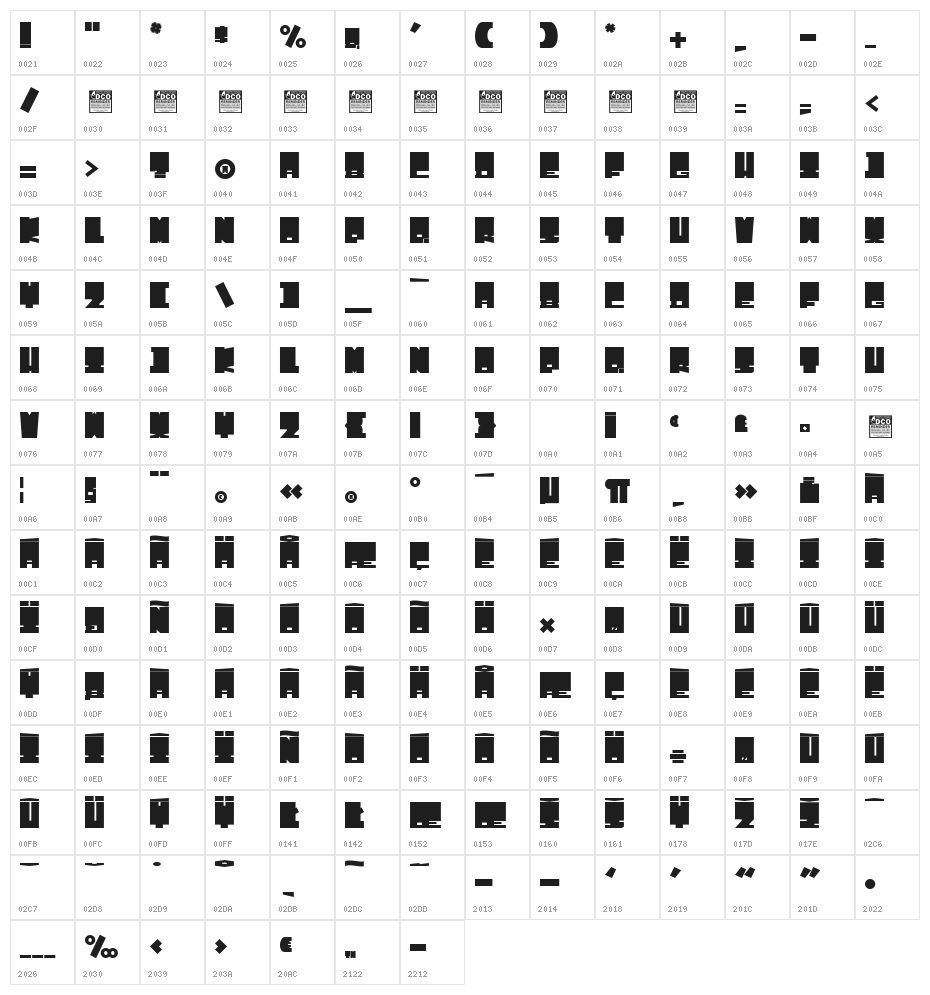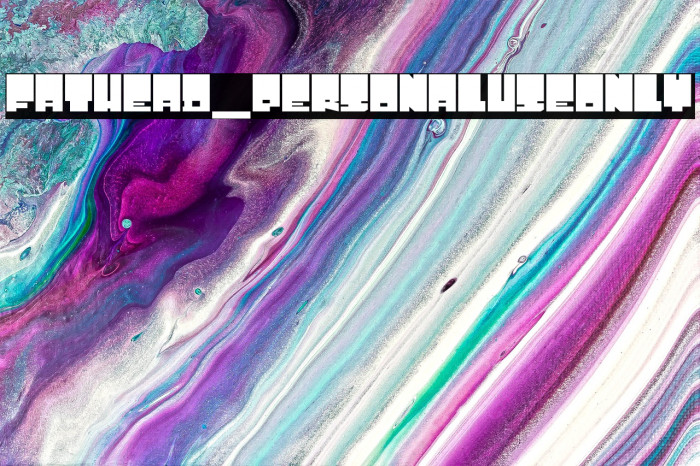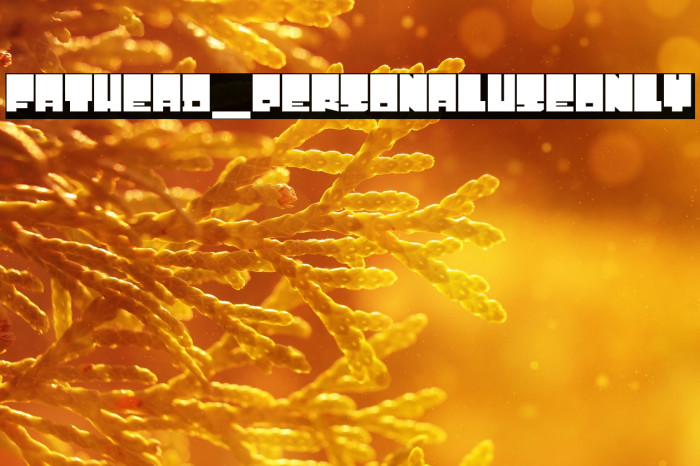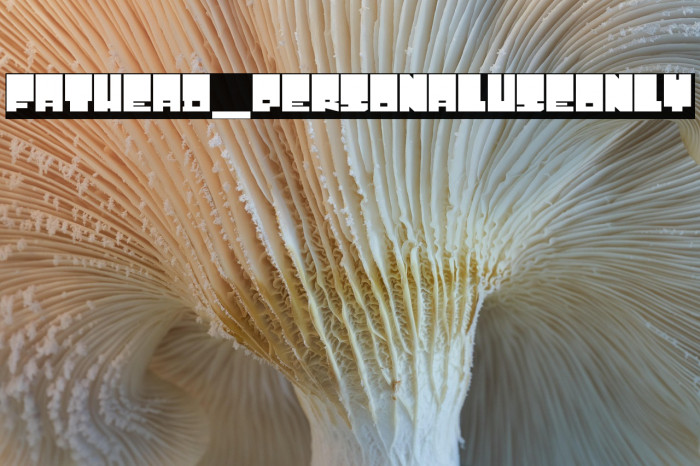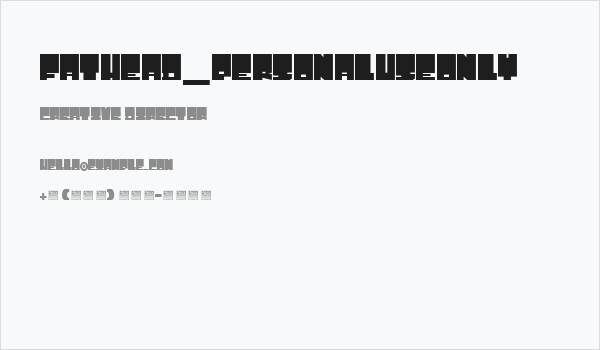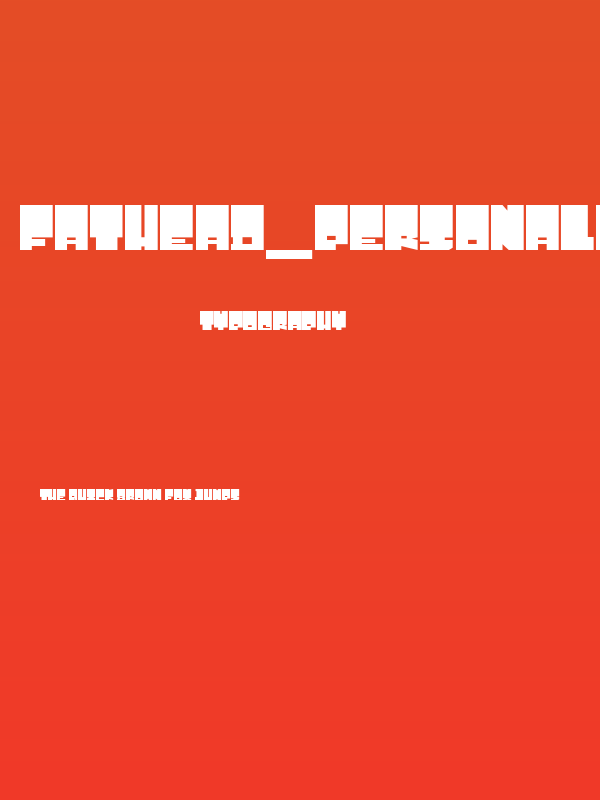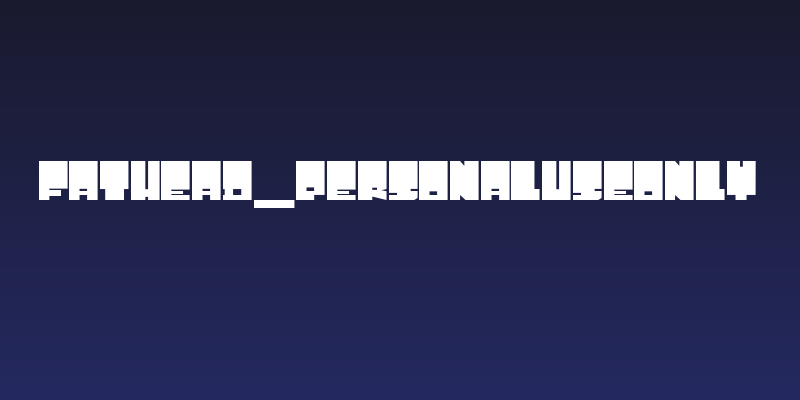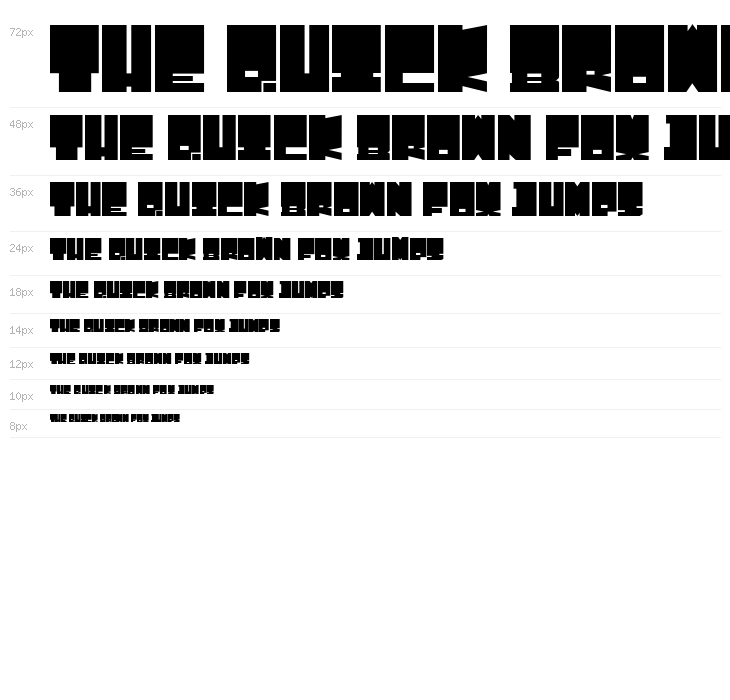
Fathead_PersonalUseOnly Font
Fathead_PersonalUseOnly Description
This font is characterized by its bold, blocky design with a distinctly modern and geometric appearance. The letters are constructed with thick, uniform strokes, creating a strong visual impact. The angular and edgy shapes give it a unique, almost futuristic feel. The uppercase and lowercase letters maintain a consistent style, with sharp edges and a solid presence. The numbers and special characters follow the same design principles, ensuring a cohesive look across all glyphs. This font is ideal for projects that require a bold statement or a contemporary aesthetic.
| Proposed Projects | Ideal for posters, headlines, logos, and branding materials that require a strong visual impact. |